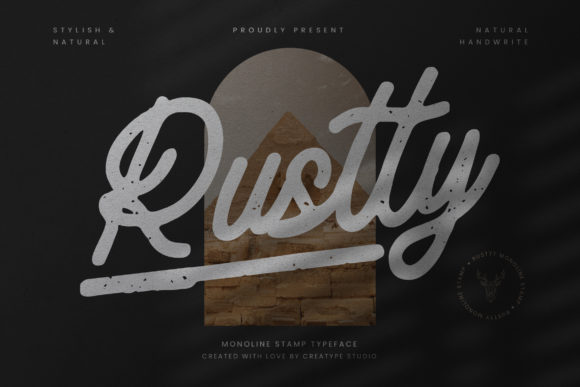
Introducing Rustty Font – A Vintage Brushstroke Script for Your Creative Projects
Journey into the world of timeless elegance with Rustty Font, a beautifully crafted script font that oozes vintage charm and personality. Inspired by the classic art of hand-painted signage, Rustty captures the essence of nostalgia, making it the perfect choice for designers, crafters, and creative entrepreneurs seeking an authentic and eye-catching font for their projects.
With its carefully crafted brushstrokes and meticulously designed characters, Rustty offers a distinct visual appeal that sets it apart from ordinary fonts. Its organic flow and natural imperfections lend a sense of warmth and authenticity to your designs, whether you're creating logos, branding materials, invitations, posters, or social media graphics.
Rustty's versatility extends beyond its aesthetic appeal. Its PUA encoding grants you effortless access to a treasure trove of glyphs and swashes, allowing you to unleash your creativity and add a touch of delightful embellishments to your projects. With a few simple clicks, you can incorporate stunning flourishes, playful swoops, and elegant ligatures that elevate your designs to new heights.
Bring a touch of the past into your contemporary creations with Rustty Font. Its vintage charm and modern functionality make it an indispensable tool for designers seeking to create designs that resonate with a timeless appeal. Whether you're designing for print or digital media, Rustty promises to captivate your audience and leave a lasting impression.